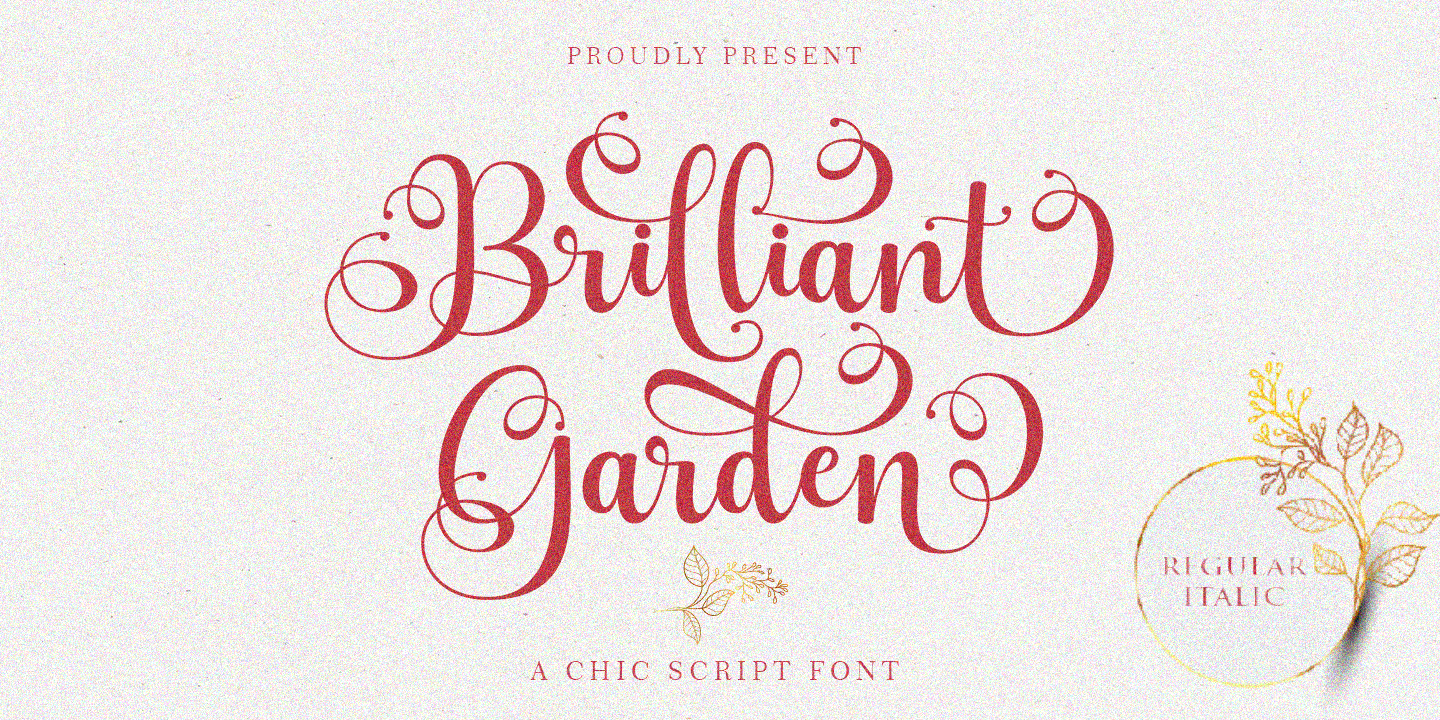
Brilliant Garden Font excels in botanical garden signage, floral design studio branding, organic gardening center materials, spring wedding invitations, nature conservancy communications, flower shop advertising, landscape architecture presentations, and sustainable living publications. This vibrant typeface brings natural beauty and botanical elegance to any project requiring fresh, organic typography with authentic garden appeal and environmental sophistication.
What makes Brilliant Garden Font exciting is its perfect embodiment of botanical brilliance and natural garden beauty that captures the vibrant colors of blooming flowers and the life-giving energy of thriving garden ecosystems. The font features graceful letterforms with organic curves and flourishing details that mirror the natural growth patterns of beautiful gardens and the delicate elegance of botanical artistry while maintaining excellent readability for horticultural and environmental applications. Its natural character and garden sophistication make it ideal for businesses celebrating nature, sustainable living, and botanical beauty seeking to convey environmental responsibility and natural excellence. The typeface's brilliant appeal ensures instant recognition of garden quality and botanical authenticity.
The Brilliant Garden Font family includes Regular, Bold, Light, Flourish, and Bloom variants, each maintaining the signature garden elegance while offering different expressions of botanical beauty and natural sophistication. The family features botanical symbols, garden elements, and floral decorations that enhance its versatility for horticultural branding and environmental sustainability projects. These variants provide comprehensive tools for creating authentic garden typography with genuine botanical character and natural appeal.
Whether you're designing for garden centers, floral businesses, or environmental organizations, Brilliant Garden Font Free Download delivers the natural brilliance that defines authentic botanical typography. Its combination of garden beauty and environmental sophistication makes it perfect for communicating botanical excellence, sustainable living, and natural harmony with genuine Brilliant Garden Font Free Download brilliance and unforgettable garden elegance.